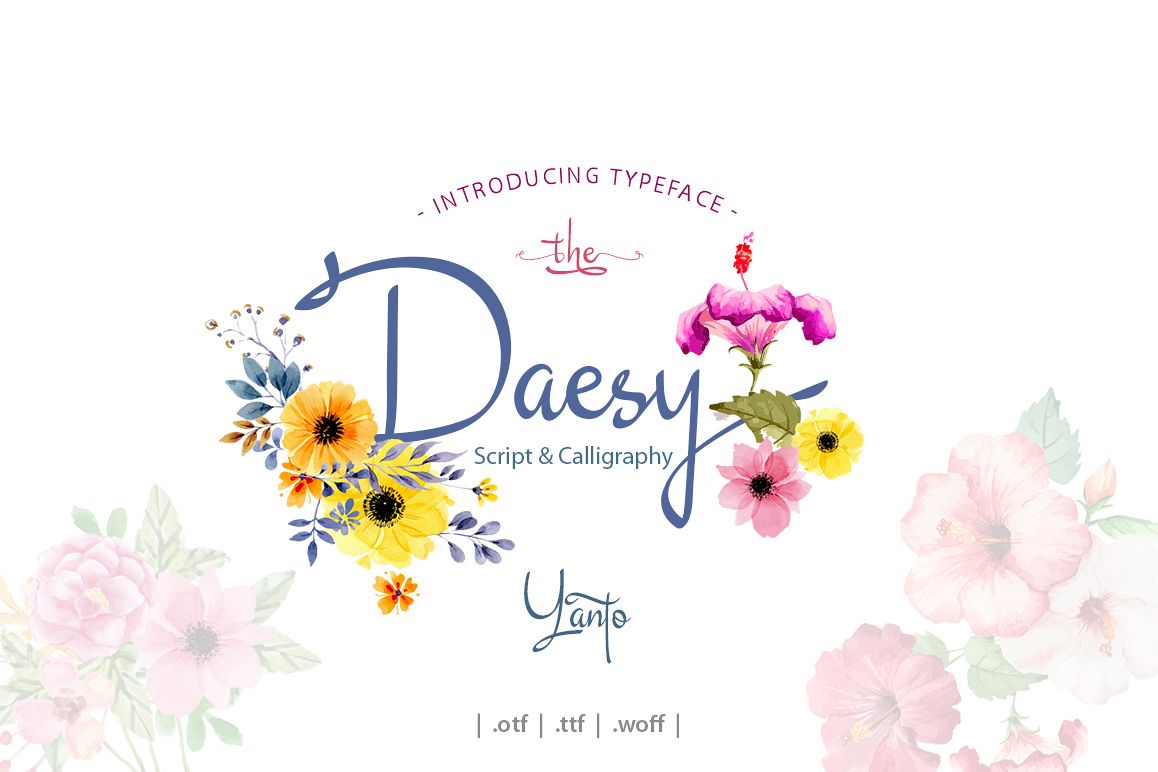
Daesy Script Challigrapy Font
DaesyScript
Daesy Script is a stylish calligraphy font that features a varying baseline, smooth line, classic and interesting touch. Can be used for various purposes. such as headings, signature, logos, posters, t-shirt, signage, lable, wedding invitation, badges etc.